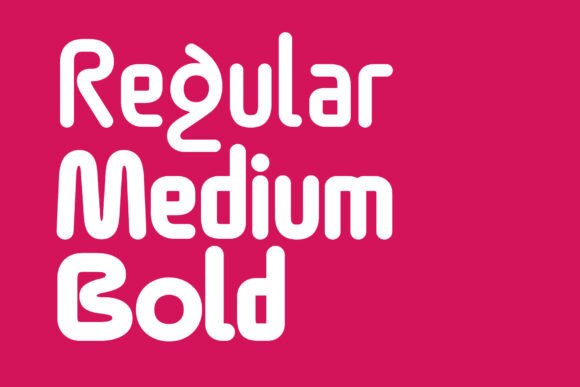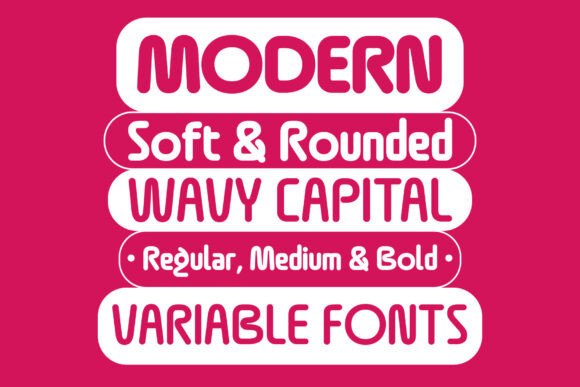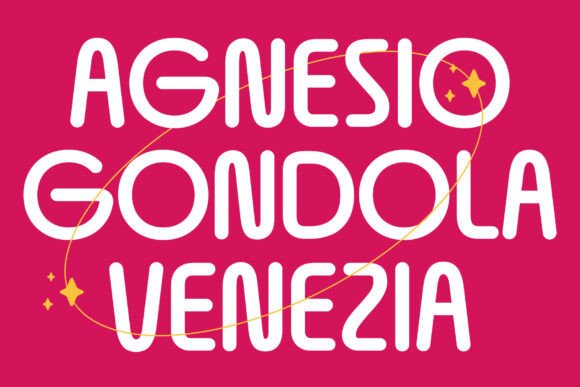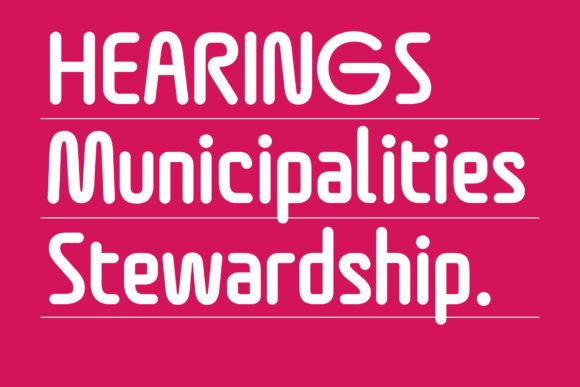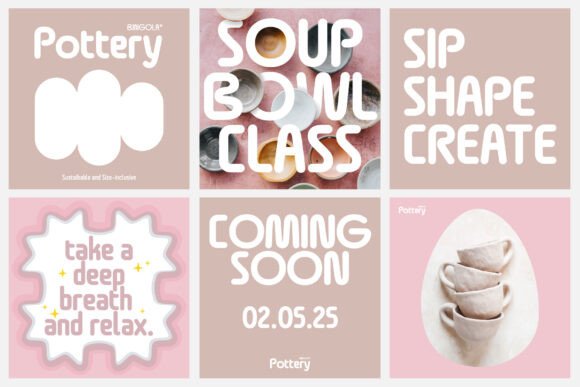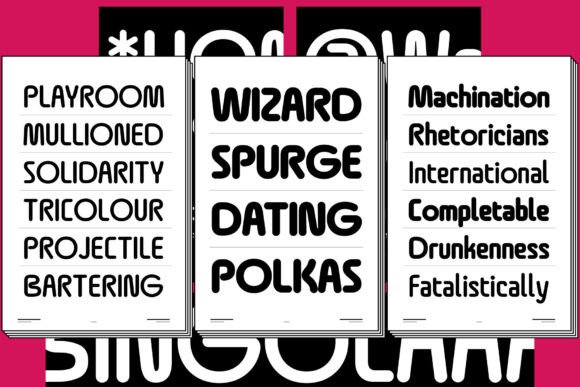
The Perfect Font for a Splash of Creativity
Have you ever stared at a blank canvas, feeling stuck and uninspired? That’s when the magic happens – a spark of creativity ignites, and suddenly, your design takes off. It’s in these moments that the right font can make all the difference. Introducing the Bingola Font, a fun and creative display font that’s sure to bring a smile to your face.
This charming font features soft, rounded edges and a unique combination of wavy uppercase and squared lowercase characters. With its friendly and modern look, the Bingola Font is perfect for eye-catching headlines, branding, packaging, and playful designs. Whether you’re designing a logo, poster, or children’s book, this font is an excellent choice for adding a touch of fun and originality to your creative projects.
Bingola Font Key Features
- Font Style: Bingola Font is a unique, modern sans-serif font with a distinctive rounded edge design.
- Character Set: The font includes a wide range of characters, including Latin, Cyrillic, and Greek alphabets, making it suitable for multilingual designs.
- Unique Characteristics: The font features a unique blend of rounded and geometric shapes, giving it a friendly and approachable feel while maintaining a level of sophistication.
- Font Weight: Bingola Font is available in 3 font weights: Light, Regular, and Bold, allowing designers to achieve a range of visual effects.
Bingola Font Review
When I first came across the Bingola font, I was immediately drawn to its unique and quirky style. ✨ The bold lines and playful character shapes give it a fun and approachable feel that would be perfect for casual designs like social media graphics or children’s books.
One of the standout features of the Bingola font is its versatility. ✨ It comes in a range of weights, from light to bold, making it easy to customize to suit different design needs. Additionally, the font includes a variety of alternate characters and ligatures, which add an extra layer of visual interest.
However, I do have a few concerns about the font’s limitations. ⚠️ For one, the font is not as legible at smaller sizes, which could be a problem for designs where clarity is key. Additionally, the font’s unique style may not be to everyone’s taste, and some users may find it too playful or childish for certain applications.
Design Considerations:
- Use for casual designs like social media graphics or children’s books.
- Avoid using at small font sizes.
- Consider the target audience and whether the font’s playful style will be effective.
Overall, I think the Bingola font is a great addition to any designer’s toolkit, but it’s essential to be aware of its limitations and use it judiciously.
Bingola font is ideal for:
- Brand identity and logos
- Typography-heavy designs, such as posters or flyers
- Headings and titles for presentations and documents